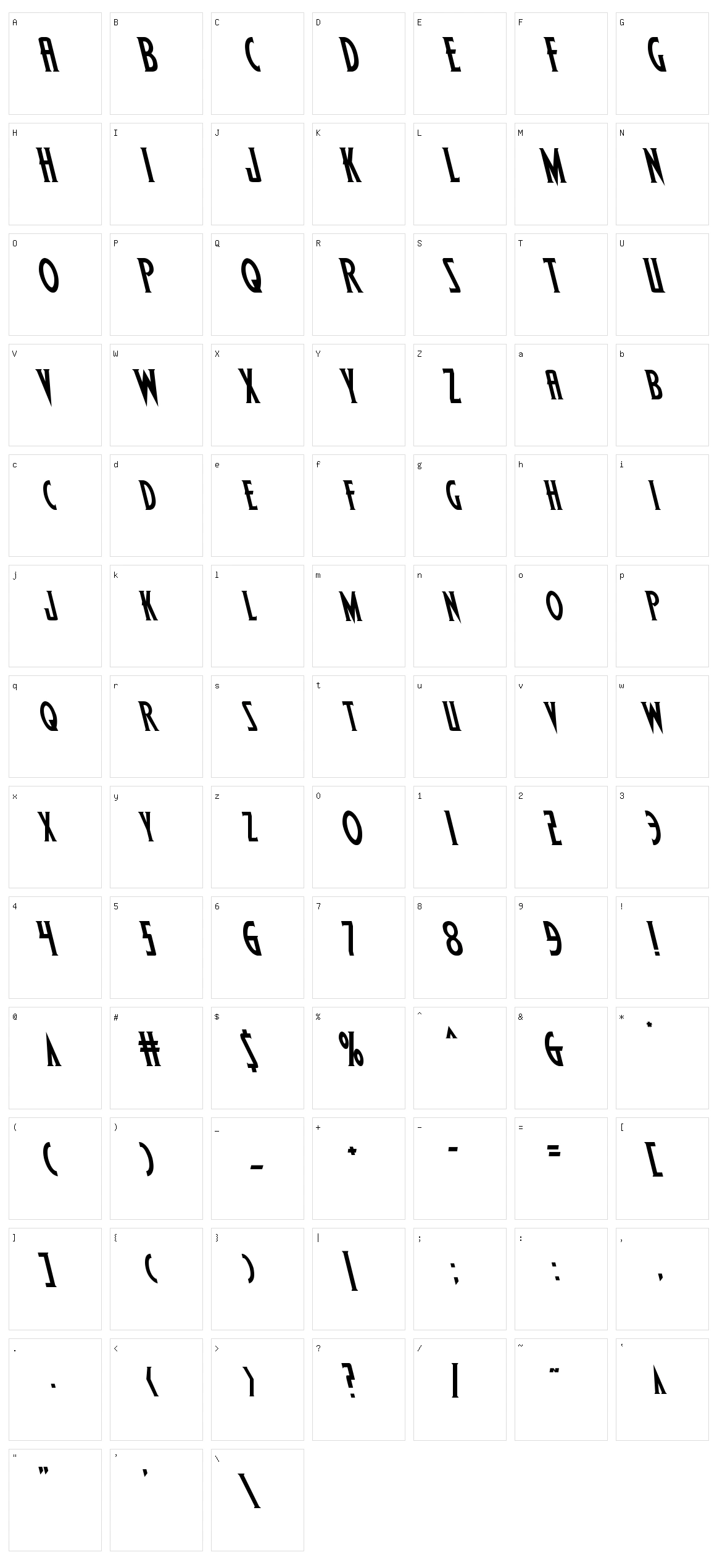
The free font Wolf's Bane is carefully designed by Iconian Fonts, showcasing a thoughtful balance of creativity and usability and falls under the Retro font style. When you download the ZIP file, it contains only 361.49 KB of font files, making it lightweight and quick to download. Please review the license details below to understand permitted usage and distribution rights. If license information is not available, we recommend using this font for personal projects only or contacting the author directly for commercial usage permissions.
This font comes with the following 15 versions: Regular, Italic, Condensed, Condensed Italic, Expanded, 3D, 3D Italic, Halftone, Halftone Italic, Academy, Academy Italic, Engraved, Engraved Italic, Semi-Leftalic and Leftalic.